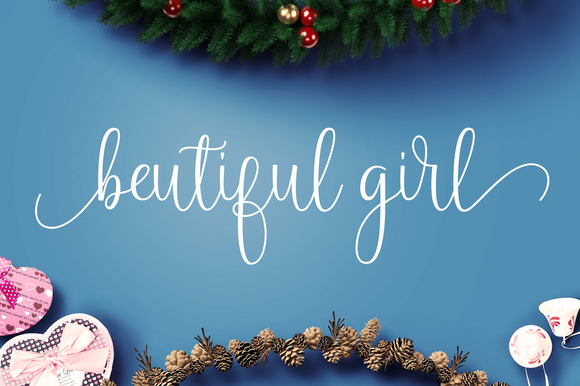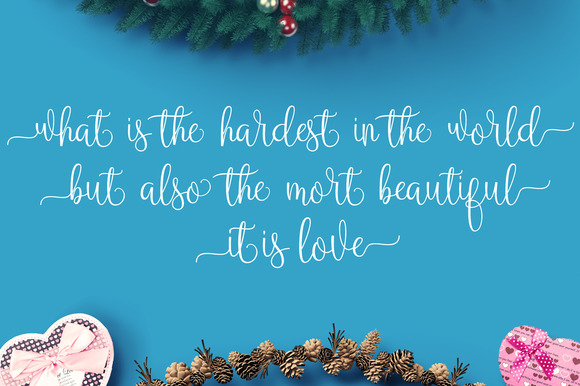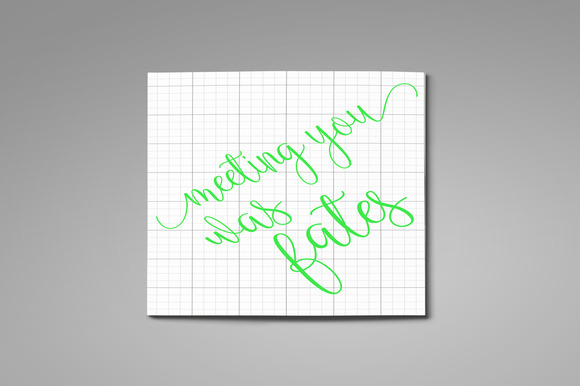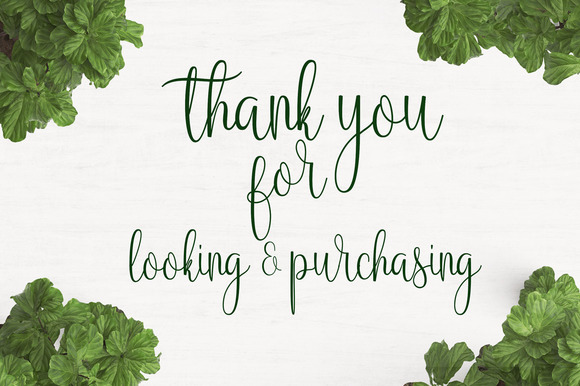
Introducing Anteater Font: A Modern Handwritten Calligraphy Font
Are you tired of using the same old fonts for your design projects? Look no further! Anteater Font is a modern handwritten calligraphy font created by JoeeCreative that is sure to add a touch of elegance and sophistication to your designs. In this article, we’ll take a closer look at the features and benefits of Anteater Font, and explore how it can be used to elevate your design projects.
What is Anteater Font?
Anteater Font is a beautiful, modern handwritten calligraphy font that is perfect for a variety of design projects, including branding, packaging, and advertising. Created by JoeeCreative, a talented font designer, Anteater Font features flowing lines, elegant lettering, and a unique, hand-crafted look that sets it apart from other fonts.
Features of Anteater Font
So, what makes Anteater Font so special? Here are just a few of its key features:
- Modern Handwritten Calligraphy: Anteater Font features a modern, handwritten calligraphy style that is both elegant and sophisticated.
- Unique Lettering: Each letter in Anteater Font has been carefully crafted to create a unique and distinctive look that sets it apart from other fonts.
- Flowing Lines: The font features flowing lines and smooth connections between letters, creating a beautiful, hand-crafted look.
- High-Quality Design: Anteater Font has been designed with high-quality and versatility in mind, making it perfect for a wide range of design projects.
Benefits of Using Anteater Font
So, why should you choose Anteater Font for your design projects? Here are just a few benefits of using this beautiful font:
- Adds Elegance and Sophistication: Anteater Font adds a touch of elegance and sophistication to any design project, making it perfect for high-end branding and advertising campaigns.
- Stand Out from the Crowd: With its unique and distinctive lettering, Anteater Font is sure to help your design project stand out from the crowd.
- Versatile: Anteater Font is highly versatile and can be used for a wide range of design projects, from packaging and branding to advertising and marketing materials.
- Easy to Read: Despite its elegant and cursive style, Anteater Font is easy to read, making it perfect for body text and headlines.
How to Use Anteater Font
So, how can you use Anteater Font in your design projects? Here are a few ideas to get you started:
- Branding and Packaging: Use Anteater Font to create beautiful and elegant branding and packaging materials, such as business cards, letterheads, and product labels.
- Advertising and Marketing: Use Anteater Font to create eye-catching and effective advertising and marketing materials, such as billboards, flyers, and brochures.
- Digital Design: Use Anteater Font to create beautiful and elegant digital designs, such as website headers, social media graphics, and email newsletters.
Tips and Tricks for Using Anteater Font
Here are a few tips and tricks to help you get the most out of Anteater Font:
- Pair with Other Fonts: Experiment with pairing Anteater Font with other fonts to create a unique and interesting look.
- Use for Headlines and Titles: Use Anteater Font for headlines and titles to add a touch of elegance and sophistication to your design.
In conclusion, Anteater Font is a beautiful and modern handwritten calligraphy font that is perfect for designers and crafters looking to add a touch of elegance and sophistication to their design projects. With its unique lettering, flowing lines, and high-quality design, Anteater Font is sure to help your design project stand out from the crowd. So why not give it a try and see the difference it can make?